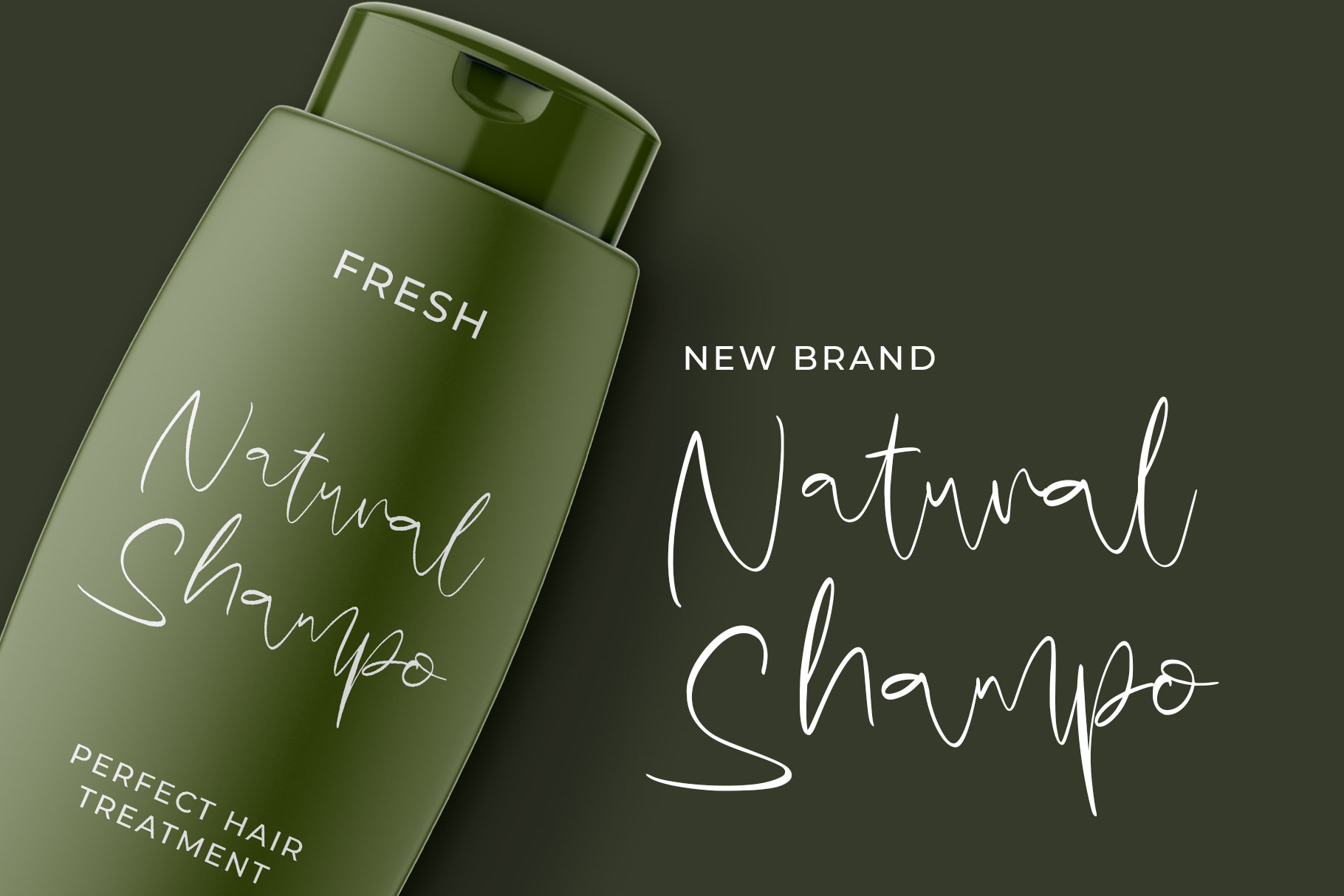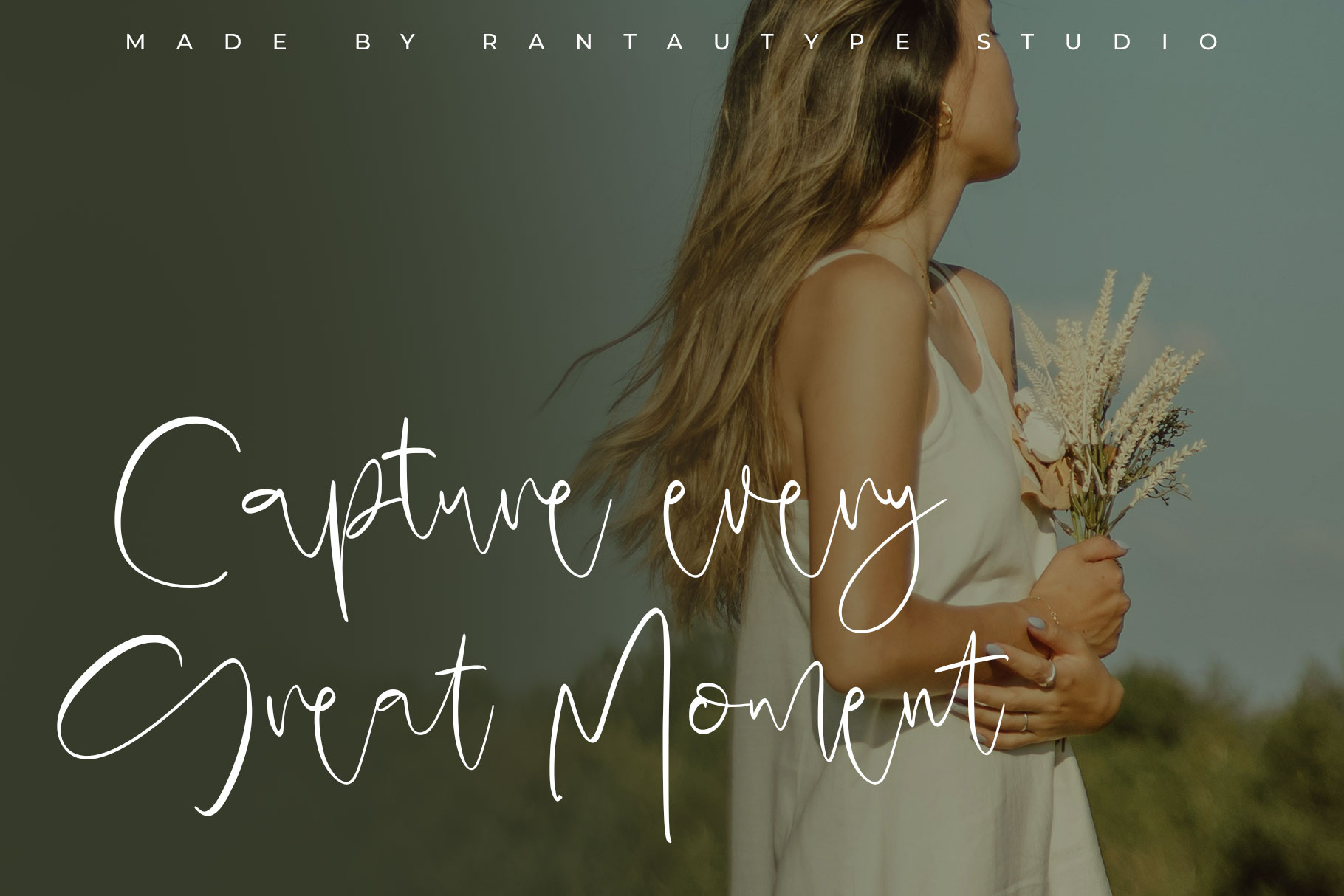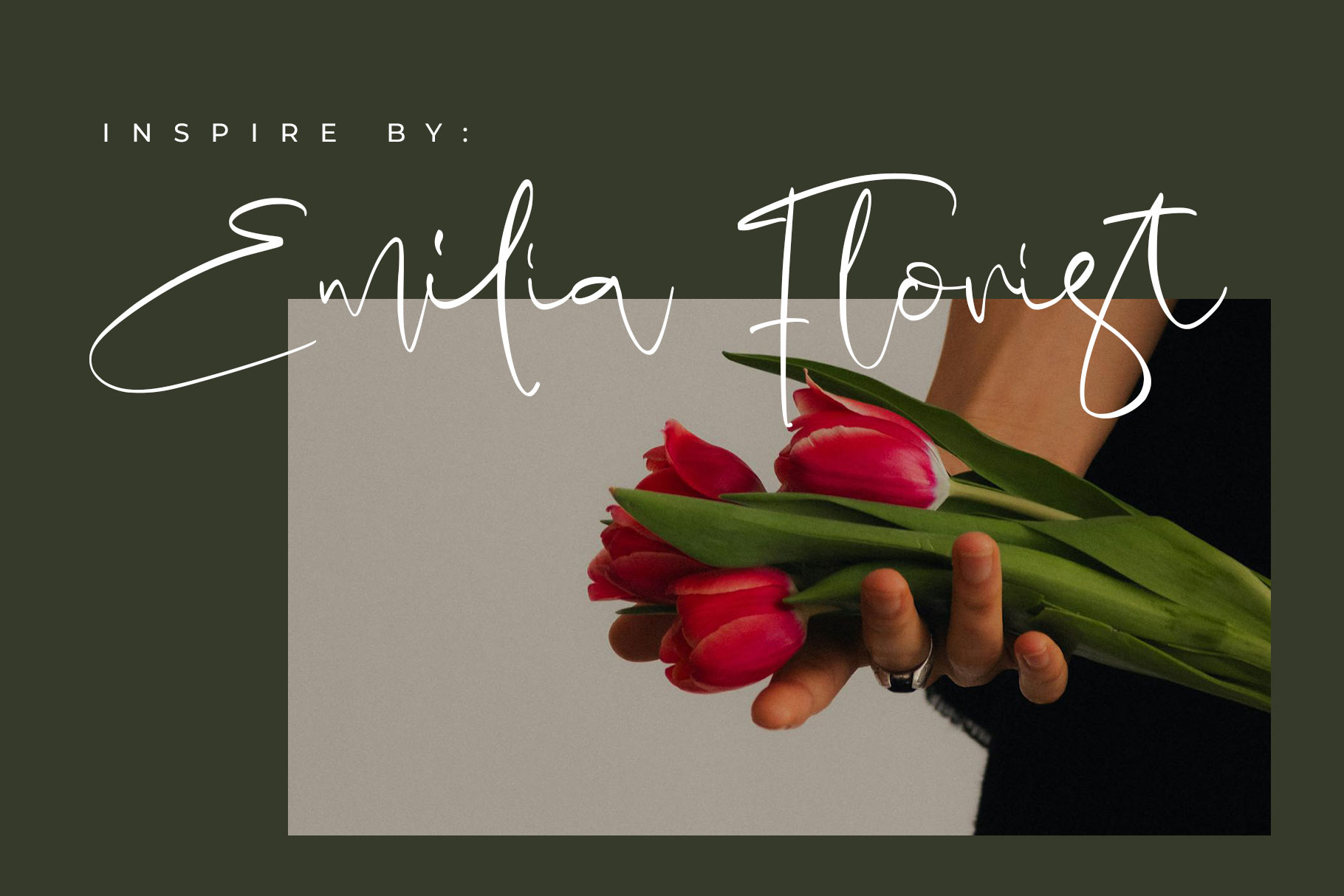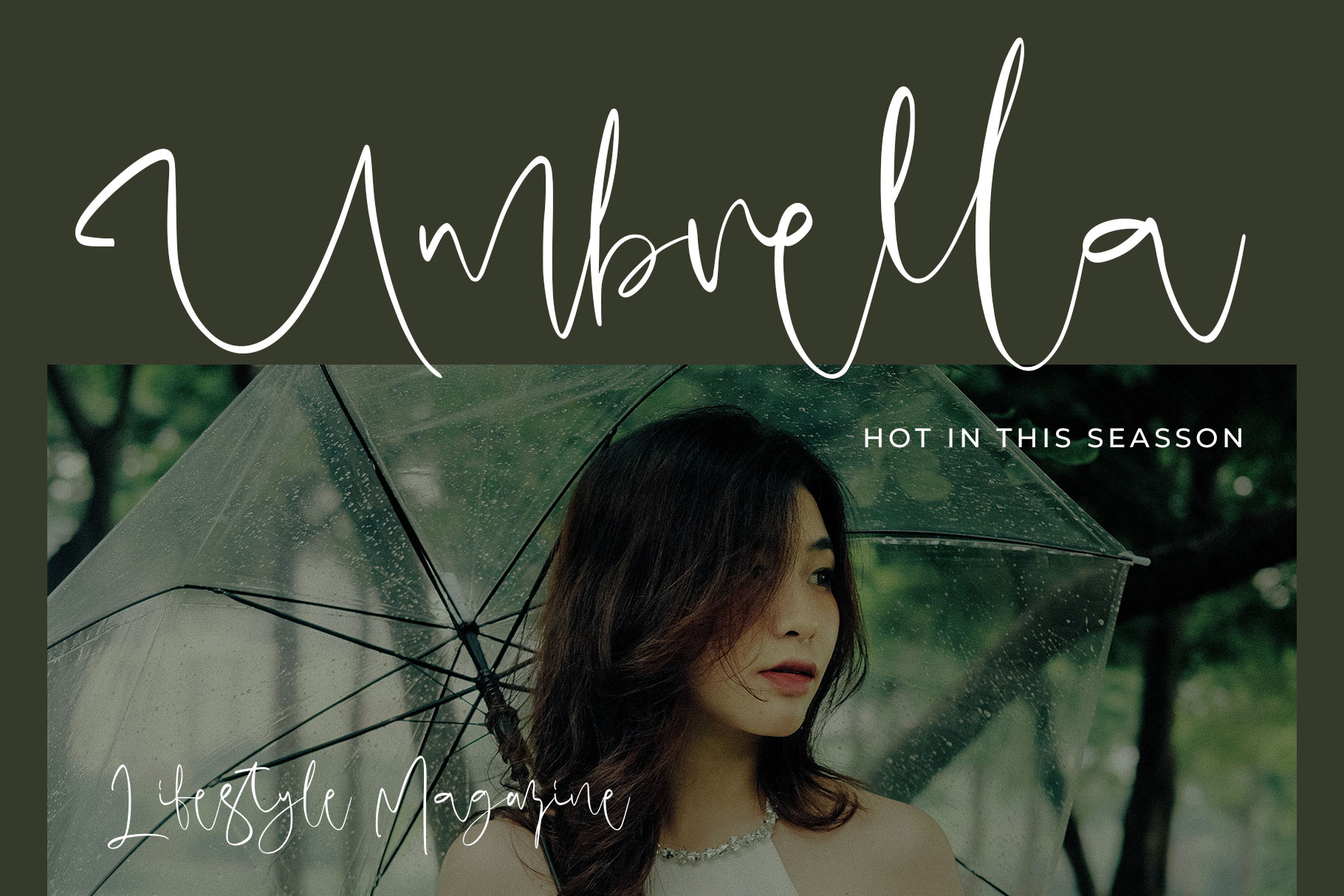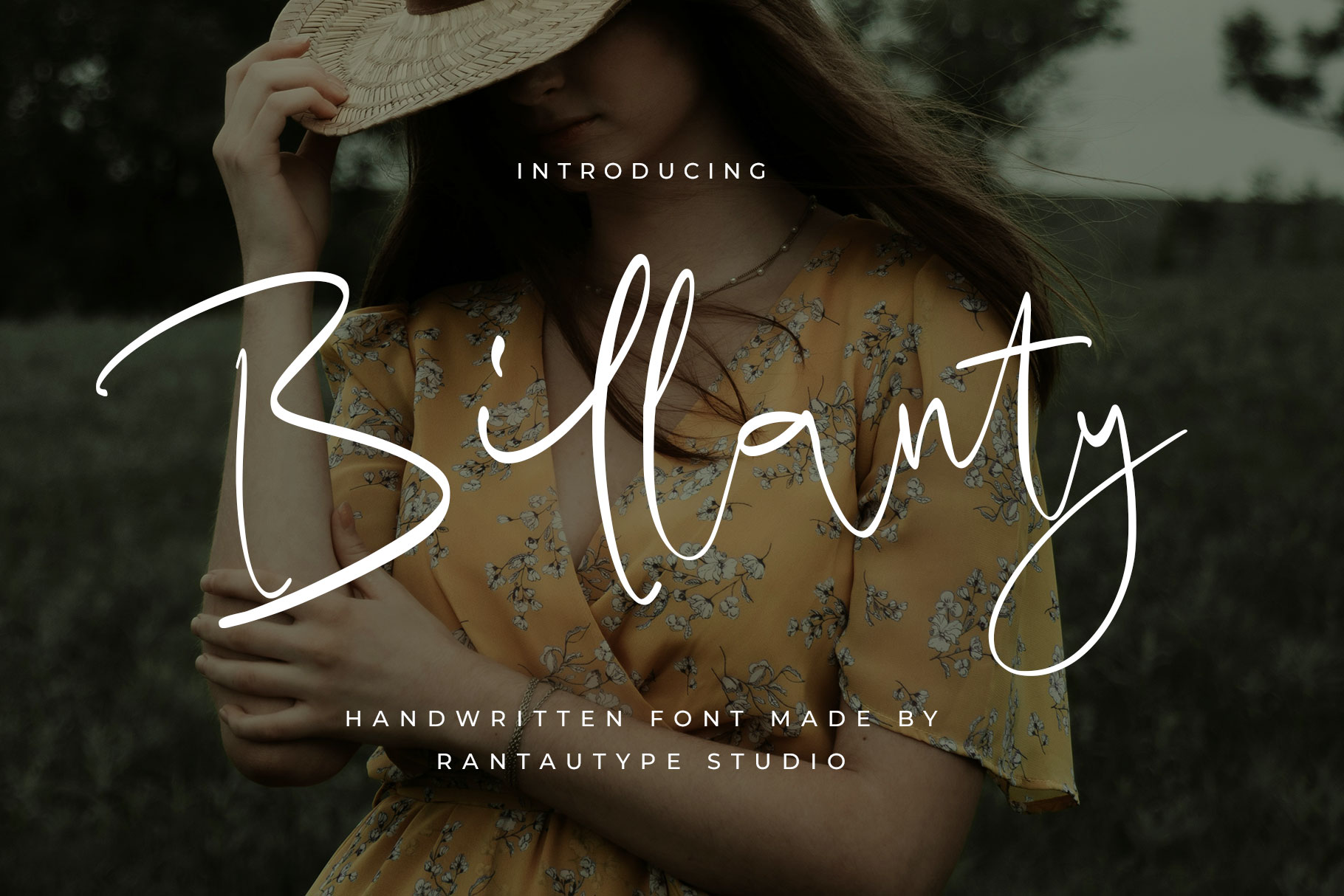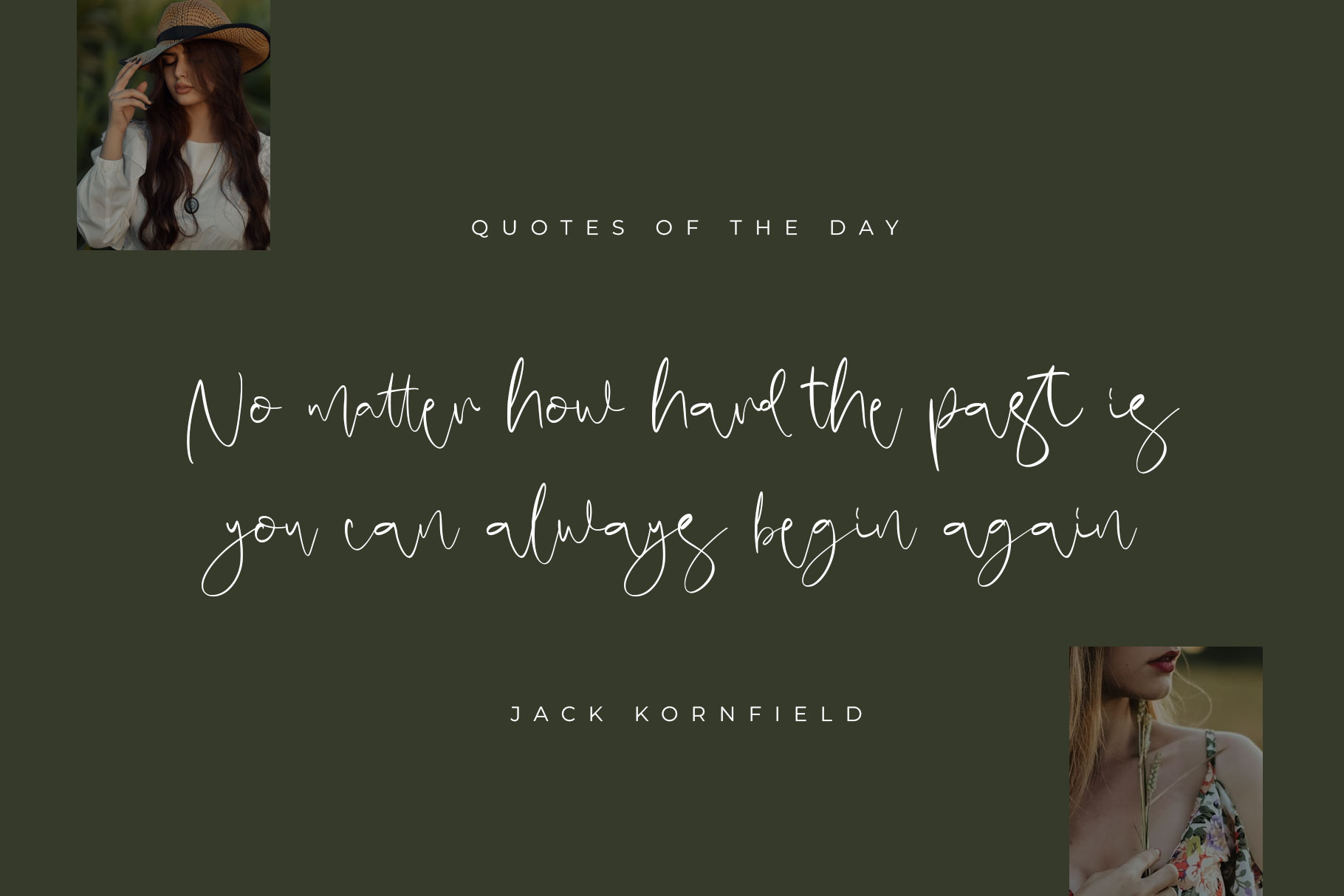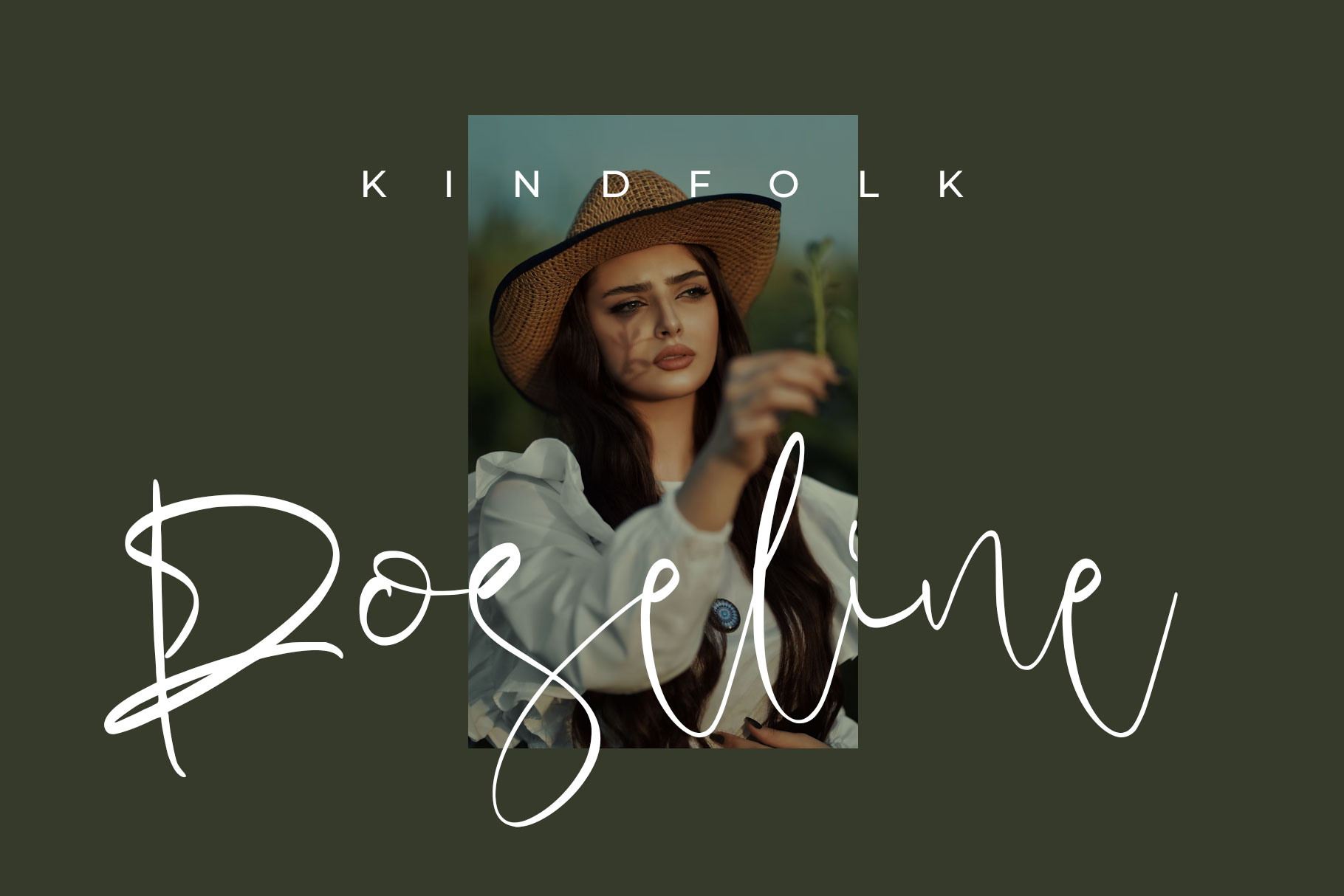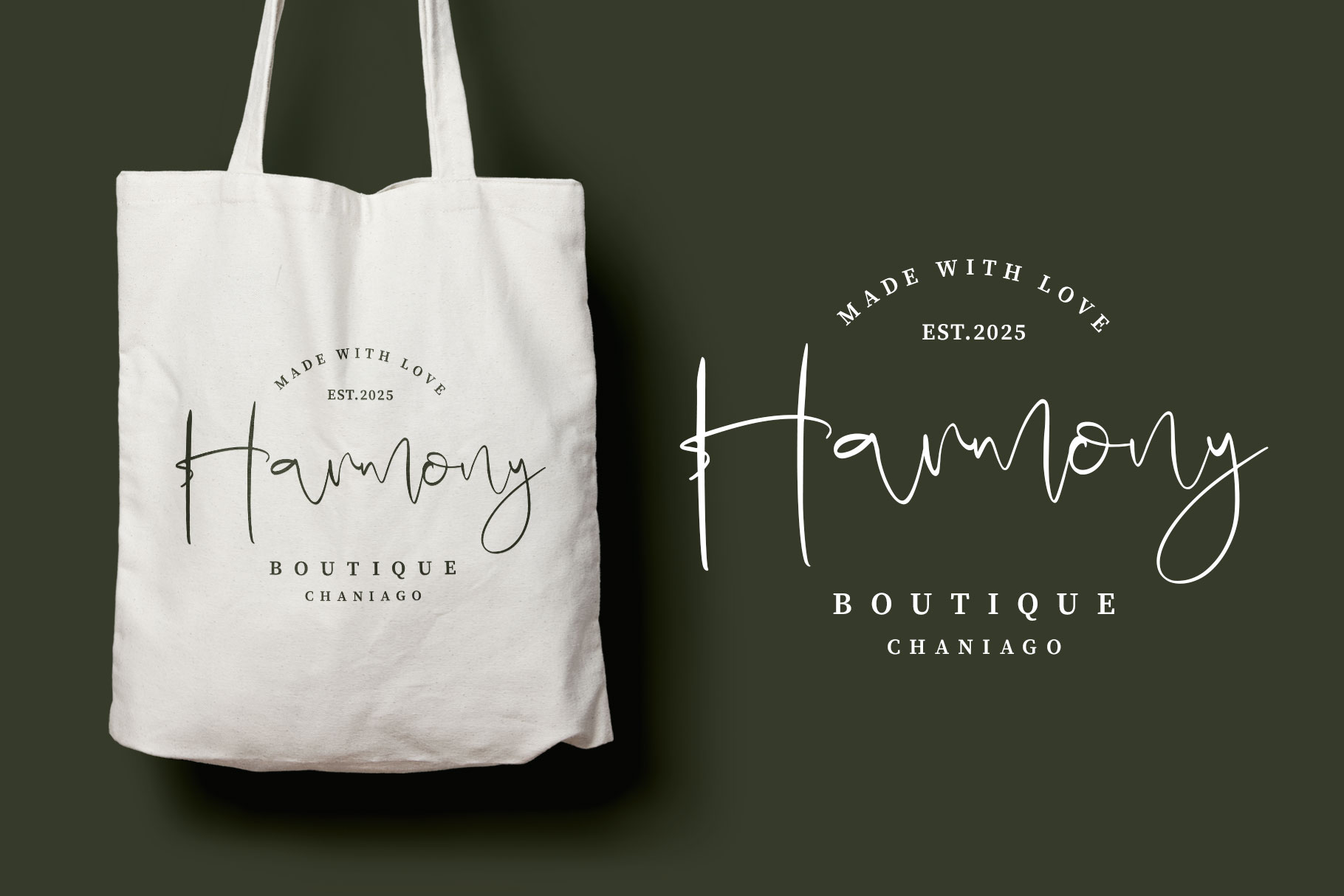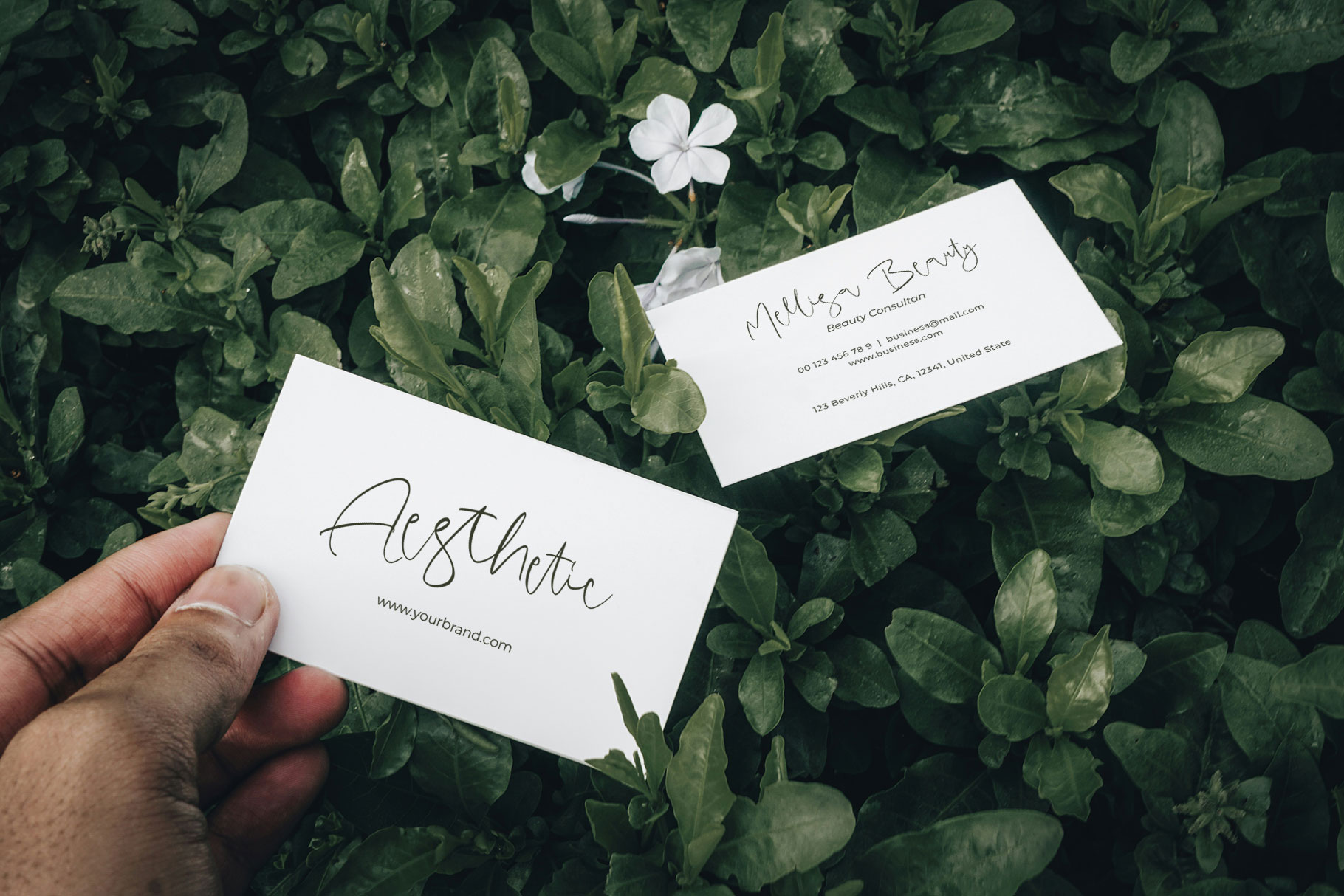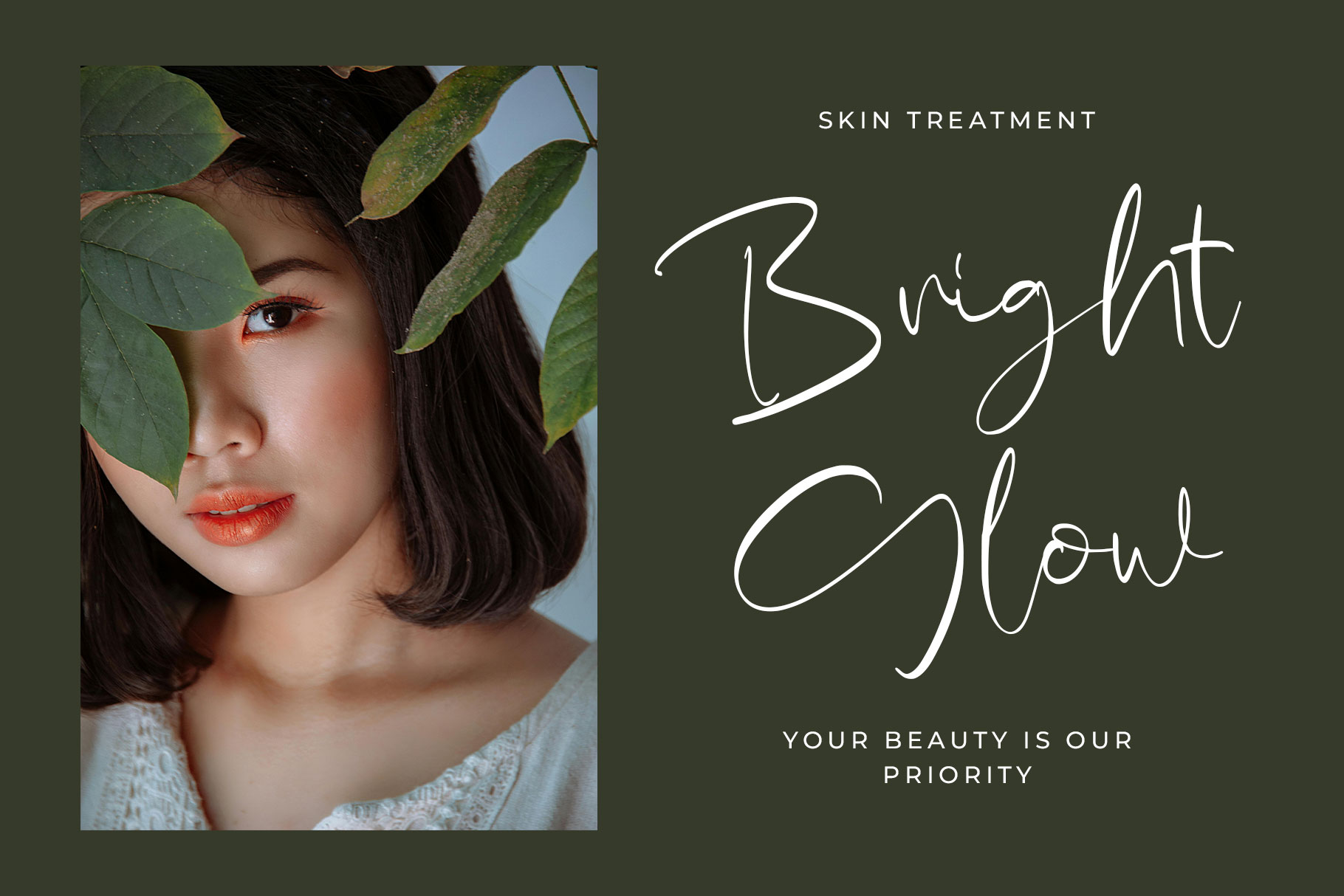
Billanty Handwritten Font
Billanty is handwritten font that embodies effortless charm and contemporary elegance. This font captures the essence of natural handwriting with smooth curves, delicate strokes, and a refined flow. Billanty come with unique blend of casual grace and stylish personality adds warmth and authenticity to every design.
Billanty is a perfectly choice for any creative endeavor, creating, modern, lifestyle design such as logotype, title, cover, branding, invitations, wedding designs, display and magazine, social media posts, advertisements, printed quotes, product packaging, corporate brand, product designs, labels, photography, watermarks, special events and any other project with handwritten feel.